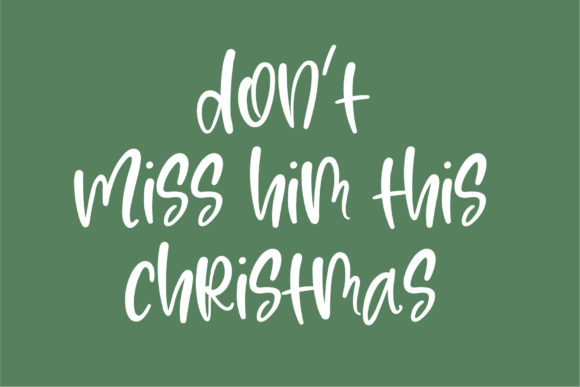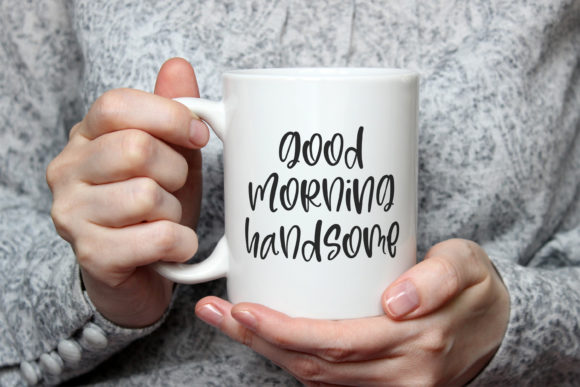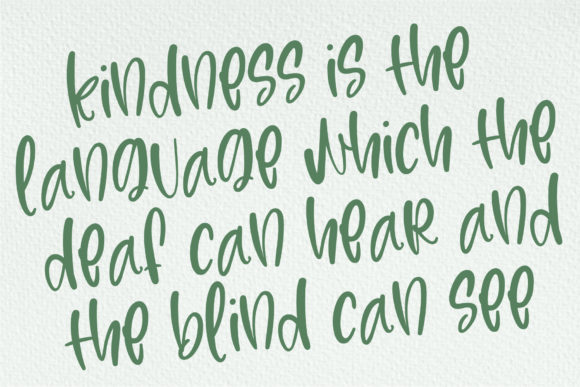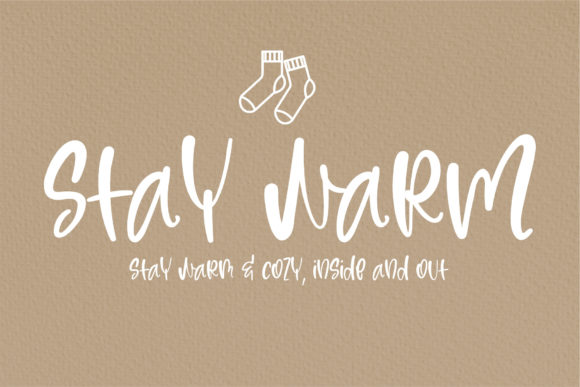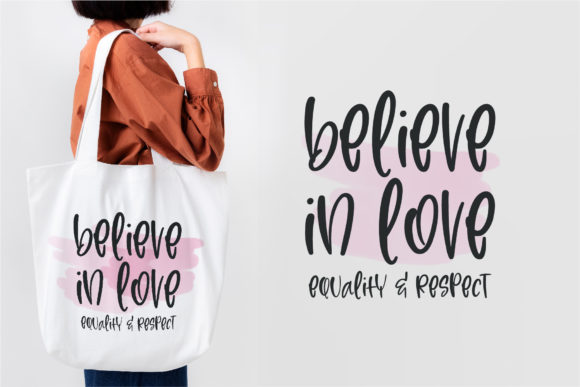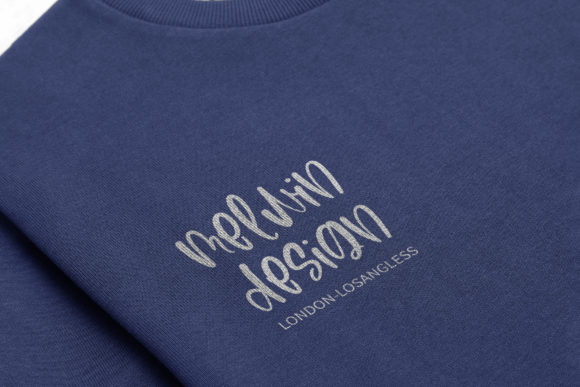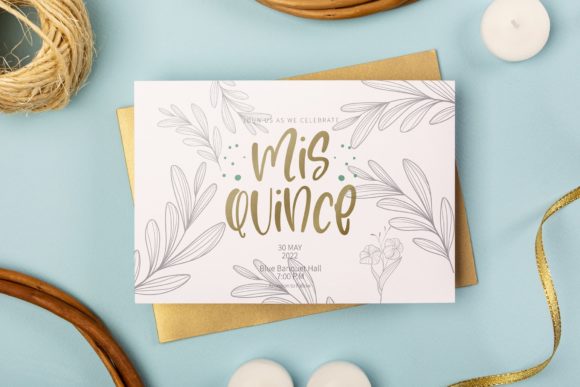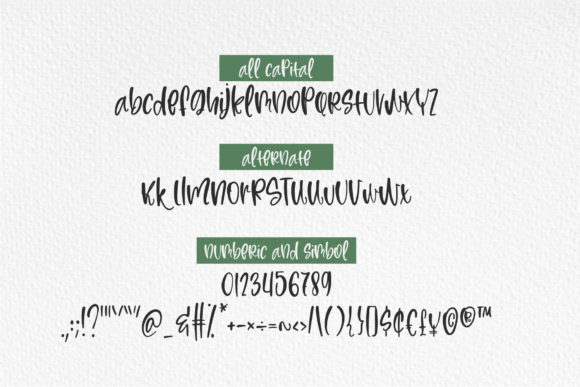
Blind Audition Font
About Blind Audition Font
Blind Audition is a chic, trendy script font that emanates confidence and versatility. Its informal style and casual vibe will make this font a go-to choice for each of the creations that require a relaxed touch.